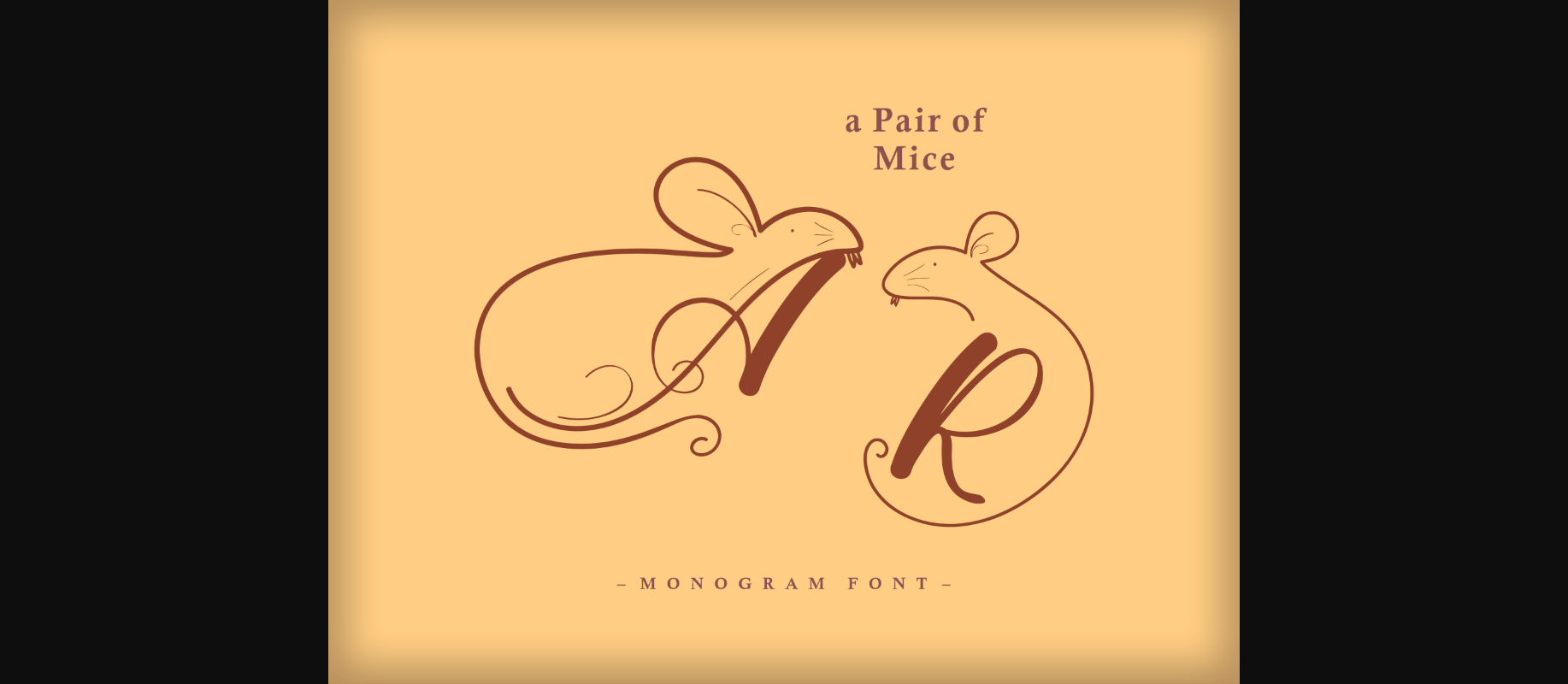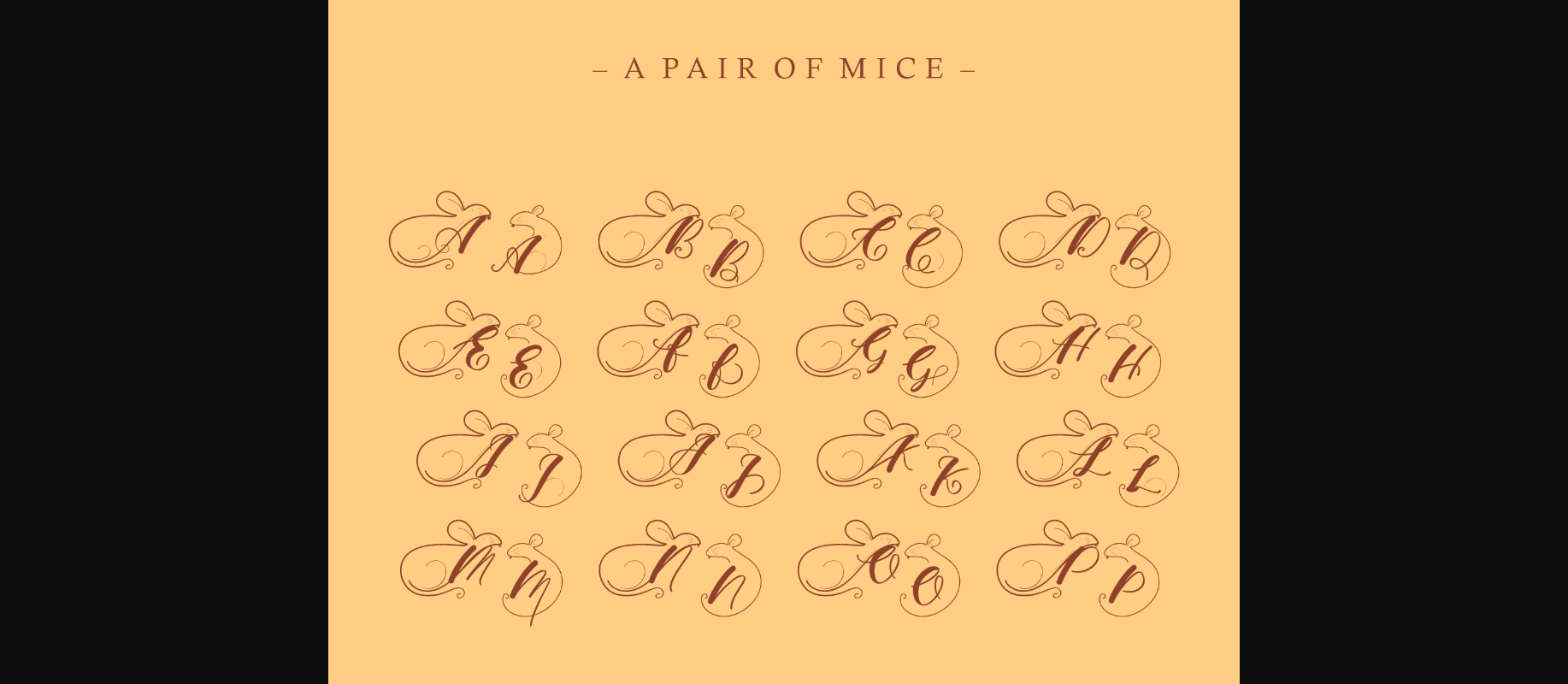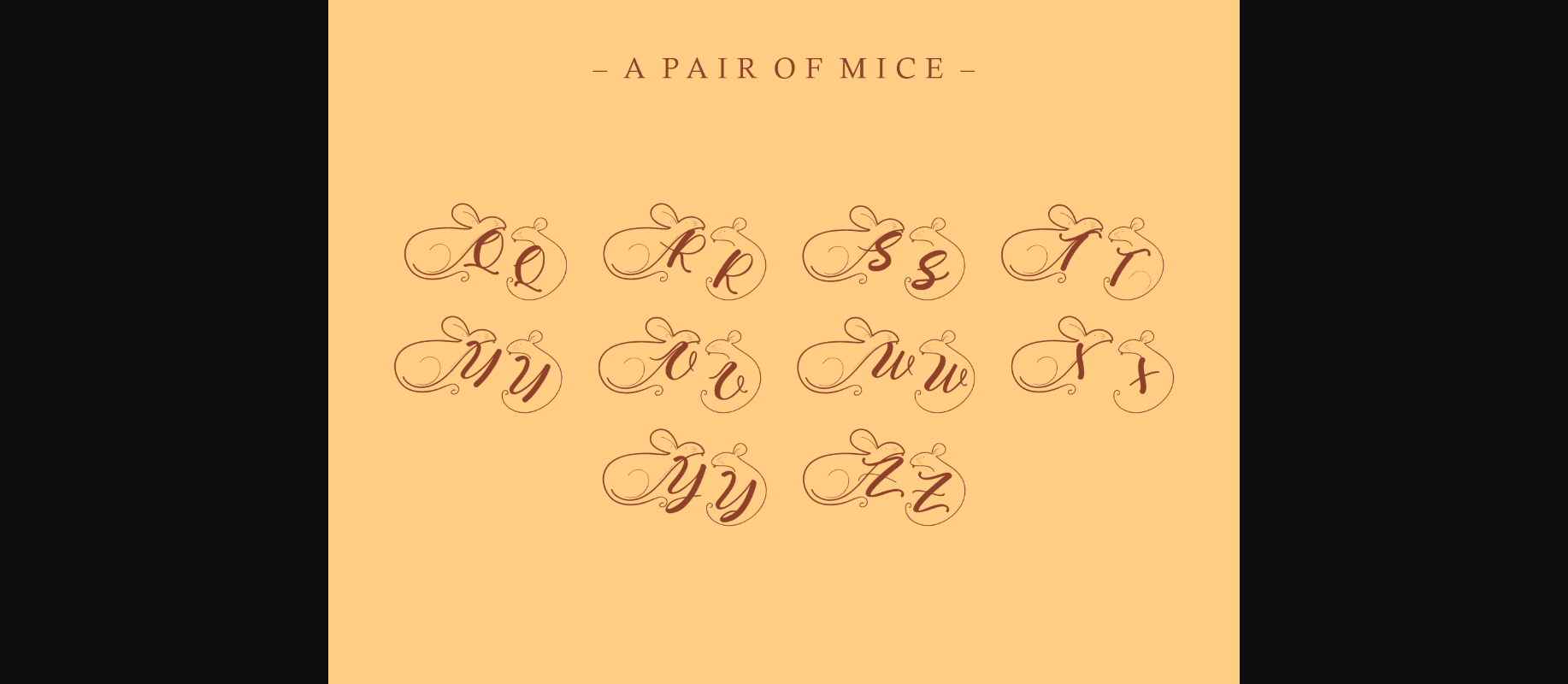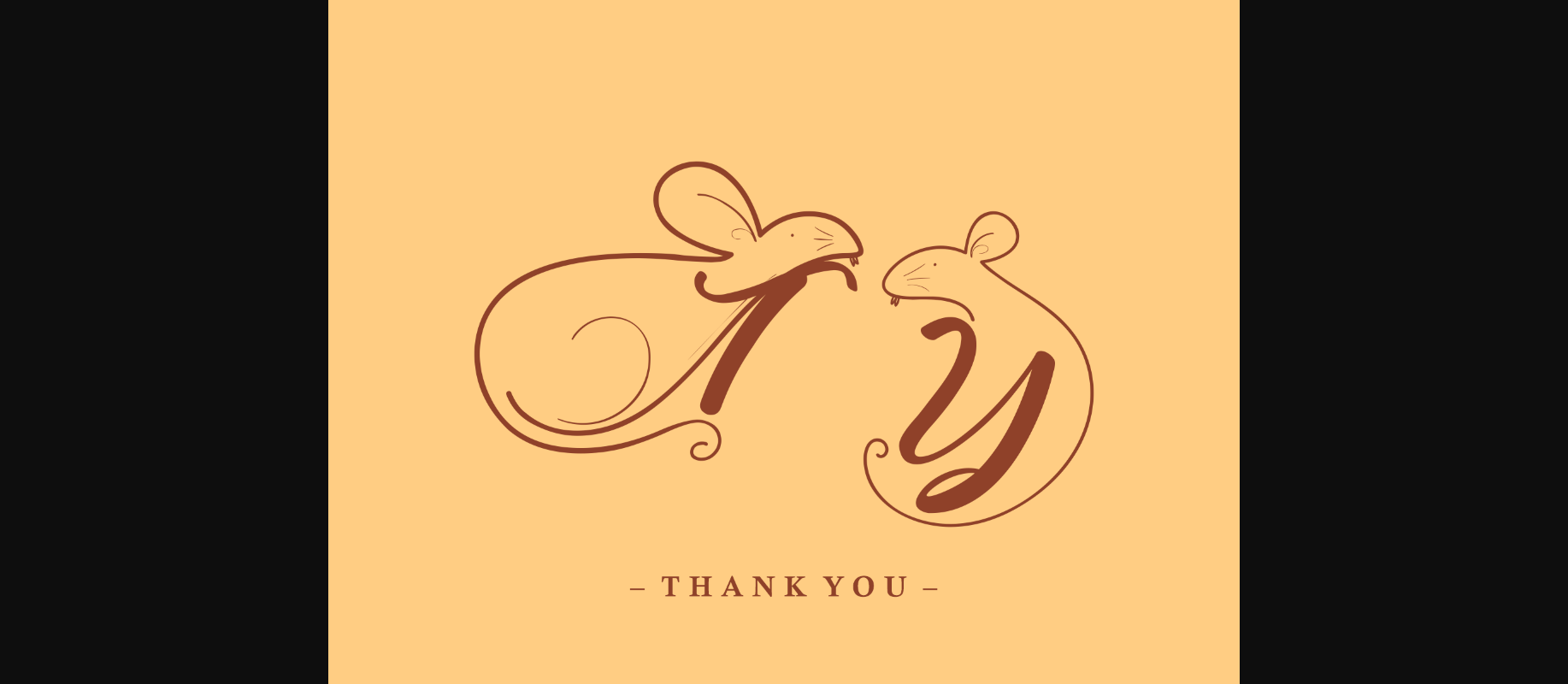
About A Pair of Mice Font
A Pair of Mice is an uniquely designed and cool decorative font. Masterfully designed to become a true favorite, this font has the potential to bring each of your creative ideas to the highest level!